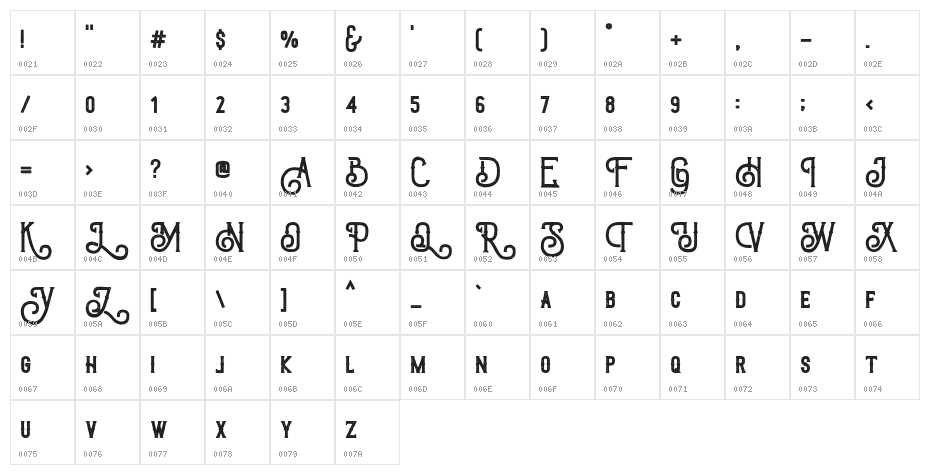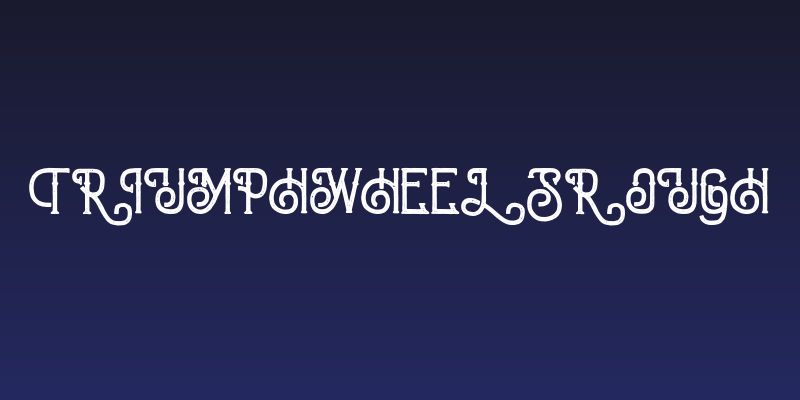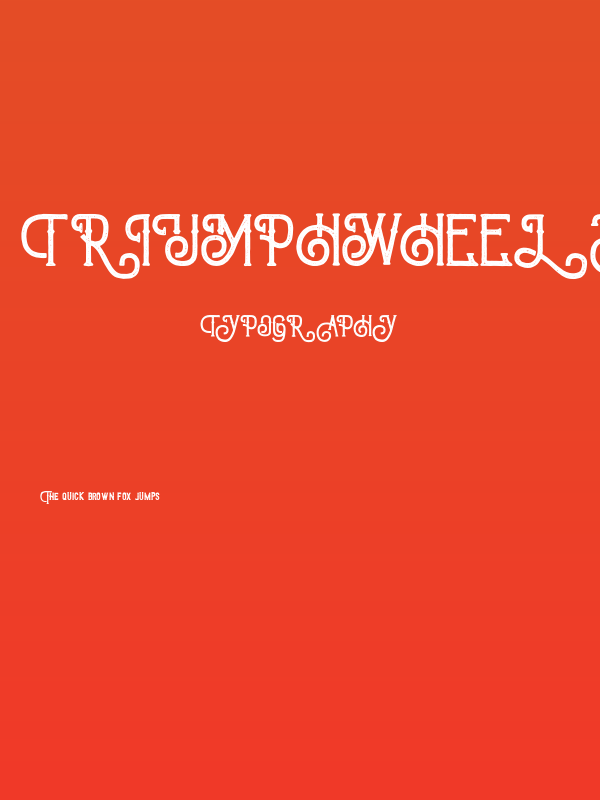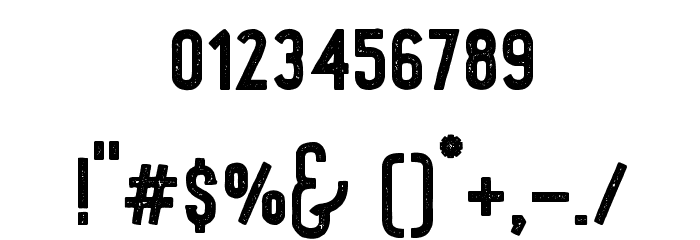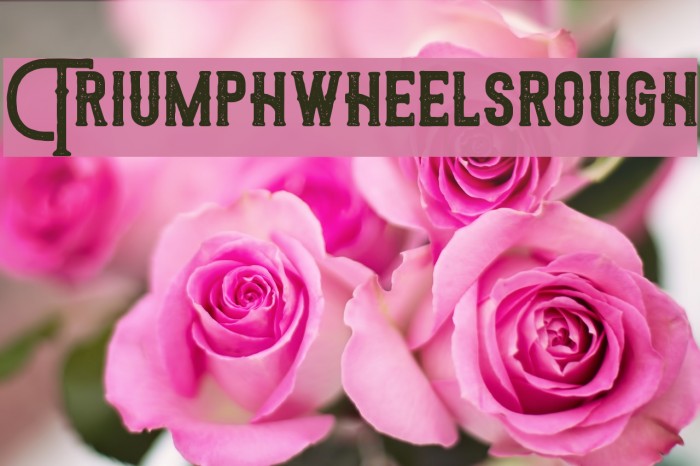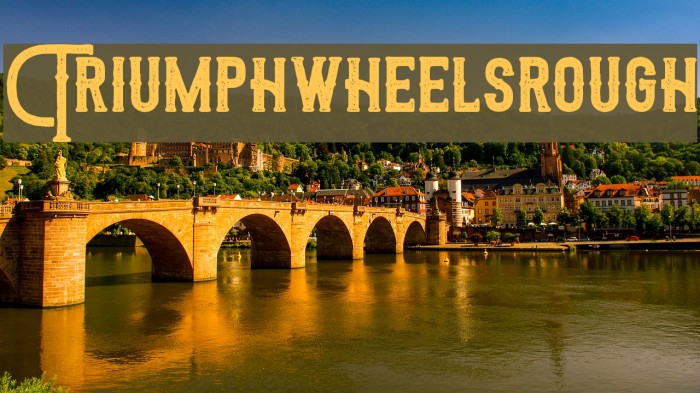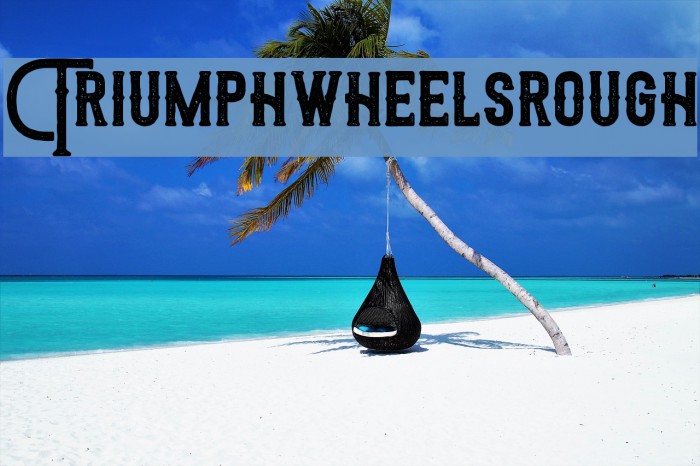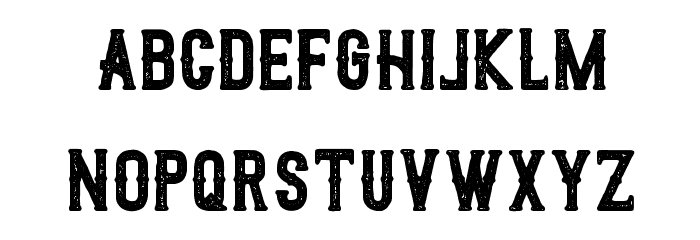
Triumphwheelsrough Font
Triumphwheelsrough Description
This font features a bold and decorative style with a vintage flair. The uppercase letters have intricate swirls and embellishments, giving them a unique and ornate appearance. The lowercase letters maintain a consistent boldness, complementing the uppercase with a simpler design. The numbers are bold and clear, ensuring readability. Special characters are creatively designed, matching the overall aesthetic. This font is ideal for projects that require a touch of elegance and historical charm, such as vintage posters, branding, and artistic designs.
| Use Case | Headlines, Logos, Decorative text |
| Proposed Projects | Ideal for vintage posters, branding, artistic designs, and decorative projects. |